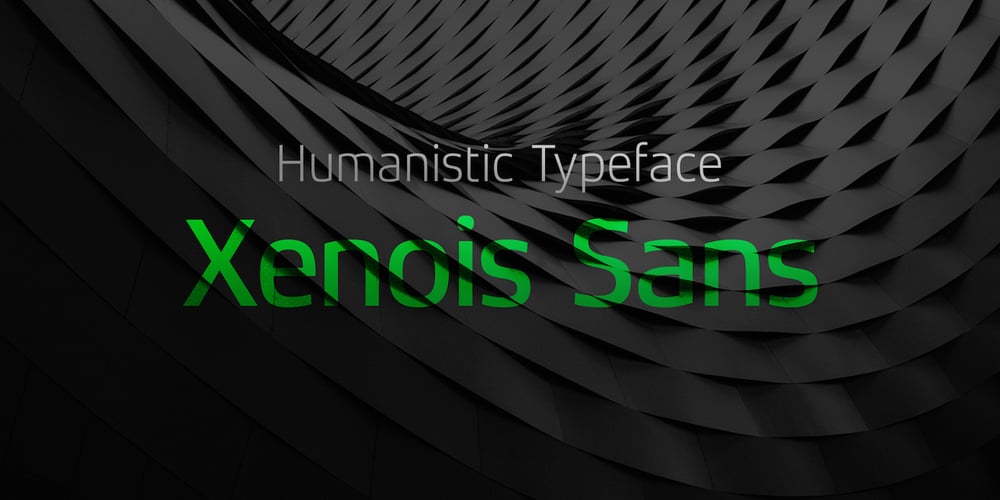
Xenois Sans Font Family was designed by Erik Faulhaber and published by Linotype. Xenois Sans contains 10 styles and family package options. “Drawing letters is my passion,” says Erik Faulhaber, the designer of the Xenois typeface family. Pronounced “zeeno-is,” the design distills character shapes into what Faulhaber believes are their purest forms. “I studied many typefaces, carefully examining their structure, before I began drawing Xenois. Then I actually wrote out a detailed design brief establishing the goals for my design.”